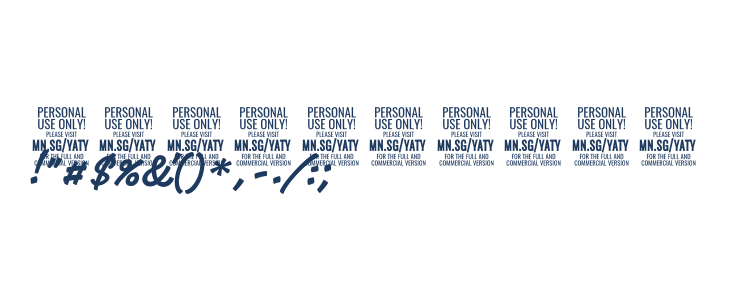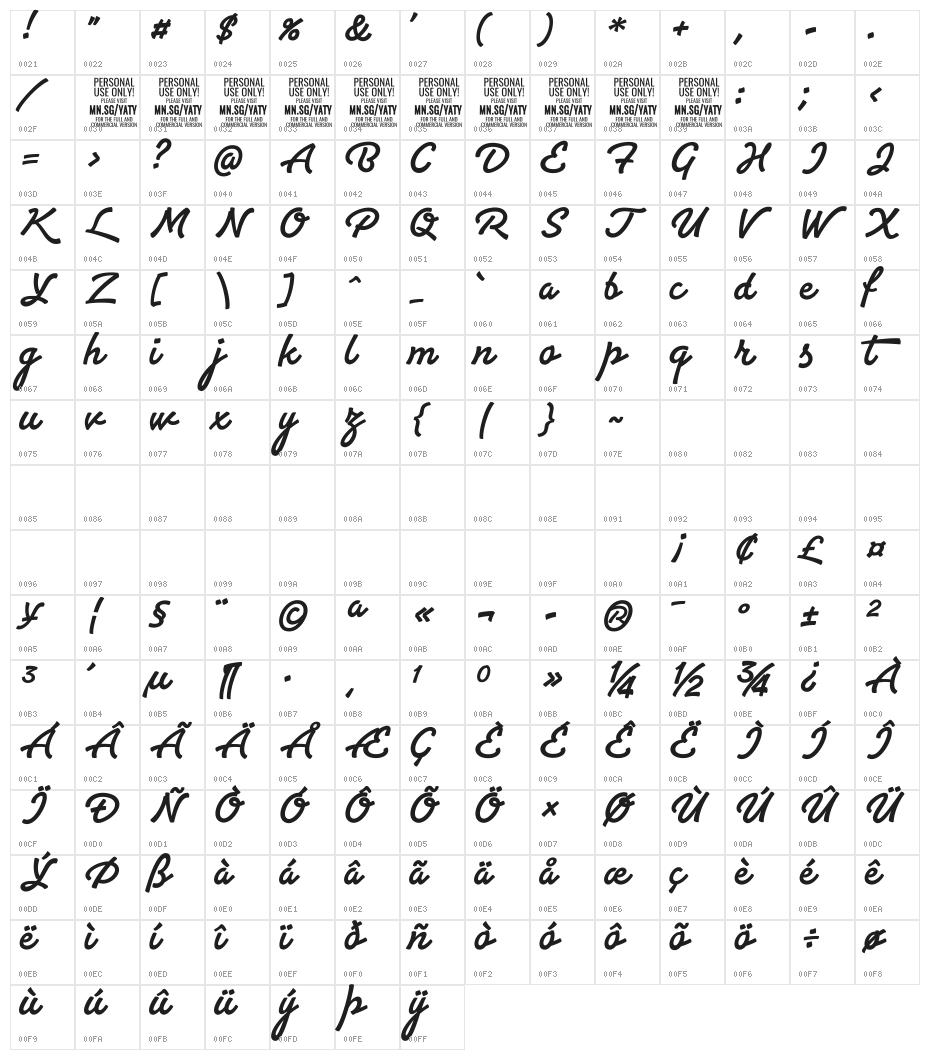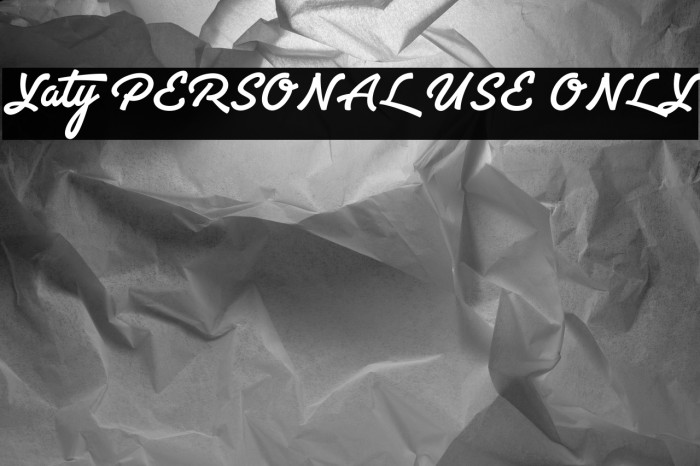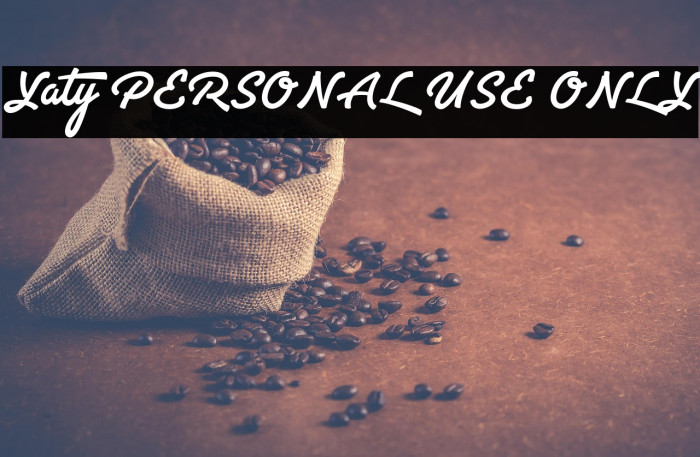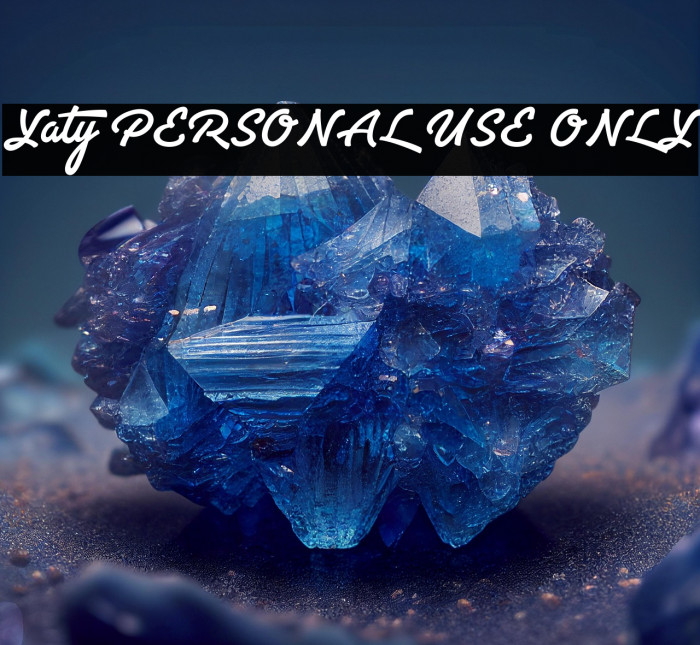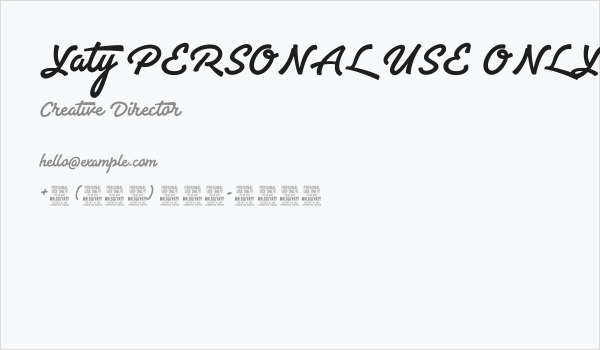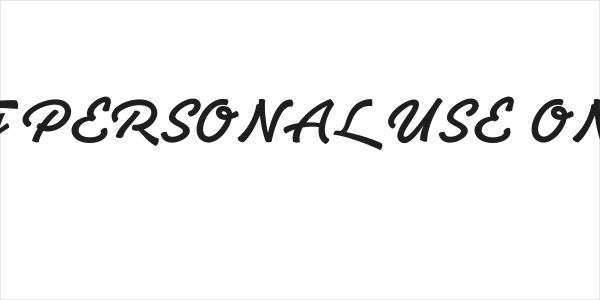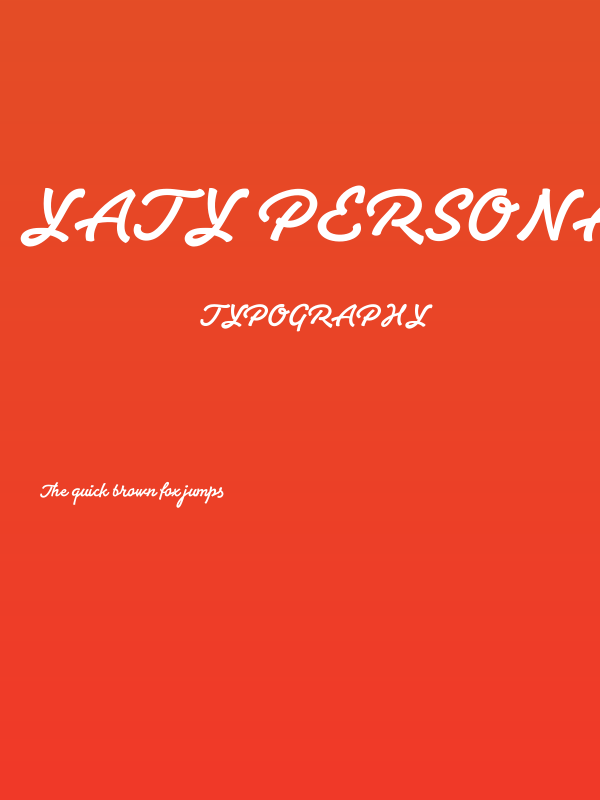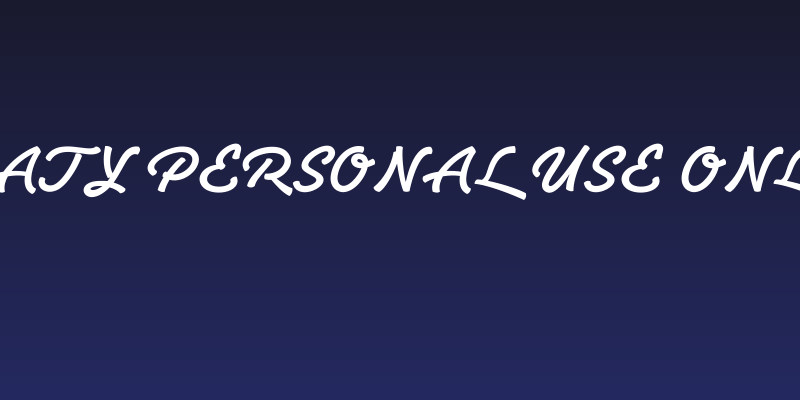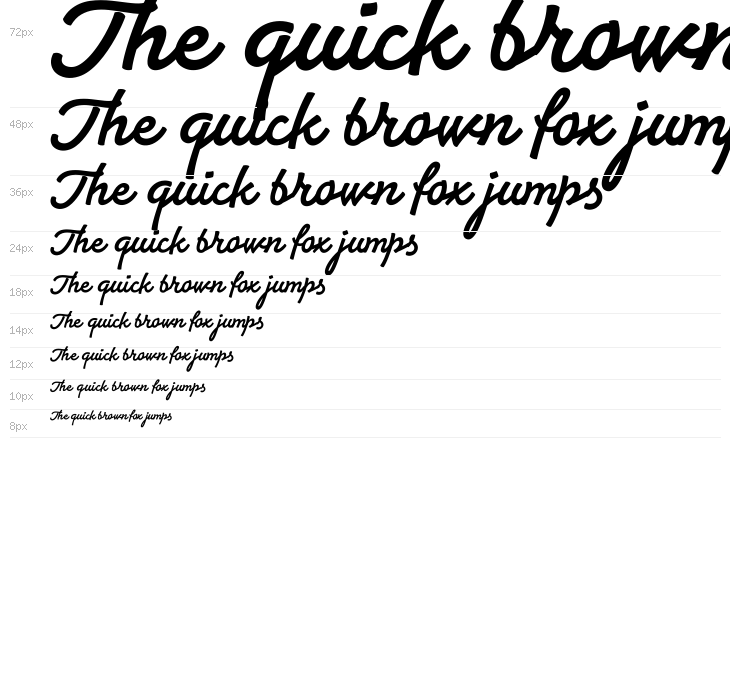
Yaty PERSONAL USE ONLY Font
Yaty PERSONAL USE ONLY Description
This font exhibits a dynamic and fluid script style, characterized by its elegant and flowing cursive letters. The uppercase letters maintain a consistent slant, adding a sense of movement and grace. The lowercase letters are intricately connected, enhancing the script's cohesiveness and readability. The font's bold strokes and smooth curves give it a robust and confident appearance, making it suitable for impactful designs. The special characters complement the overall style, maintaining the same fluidity and boldness. This font's design is both modern and classic, offering versatility for various creative projects.